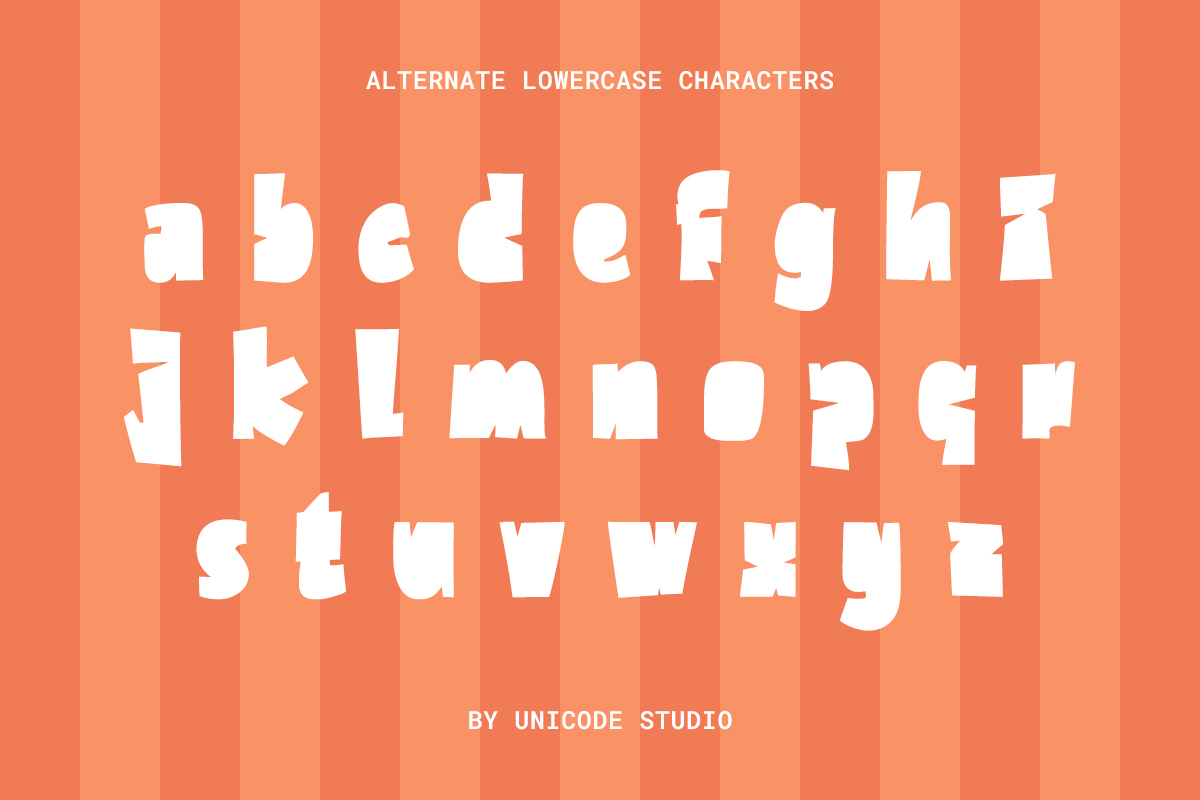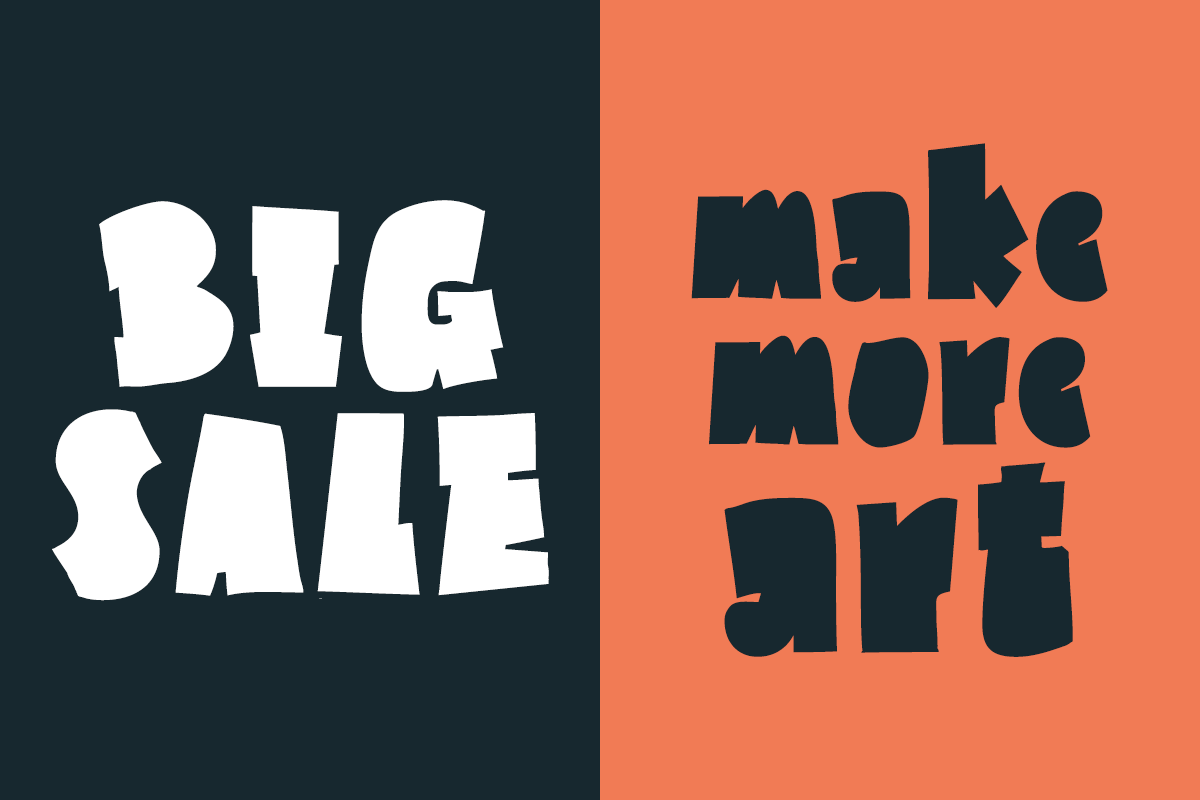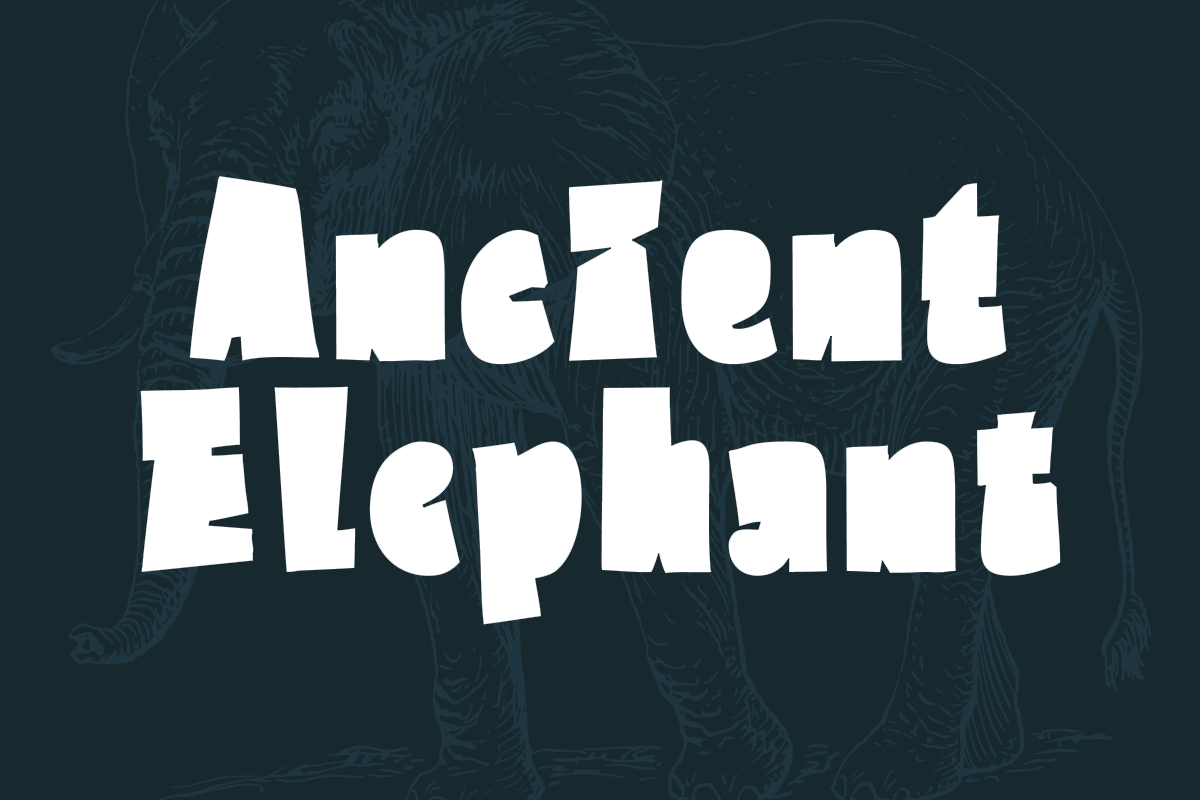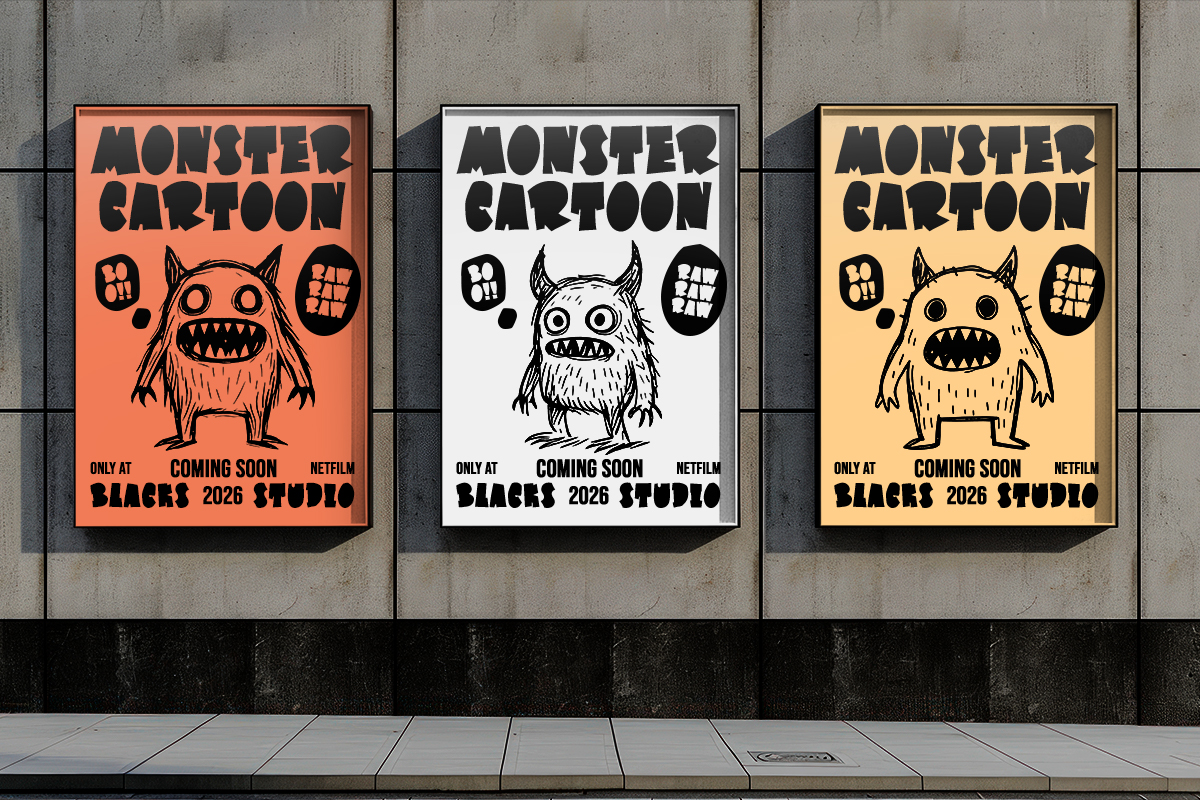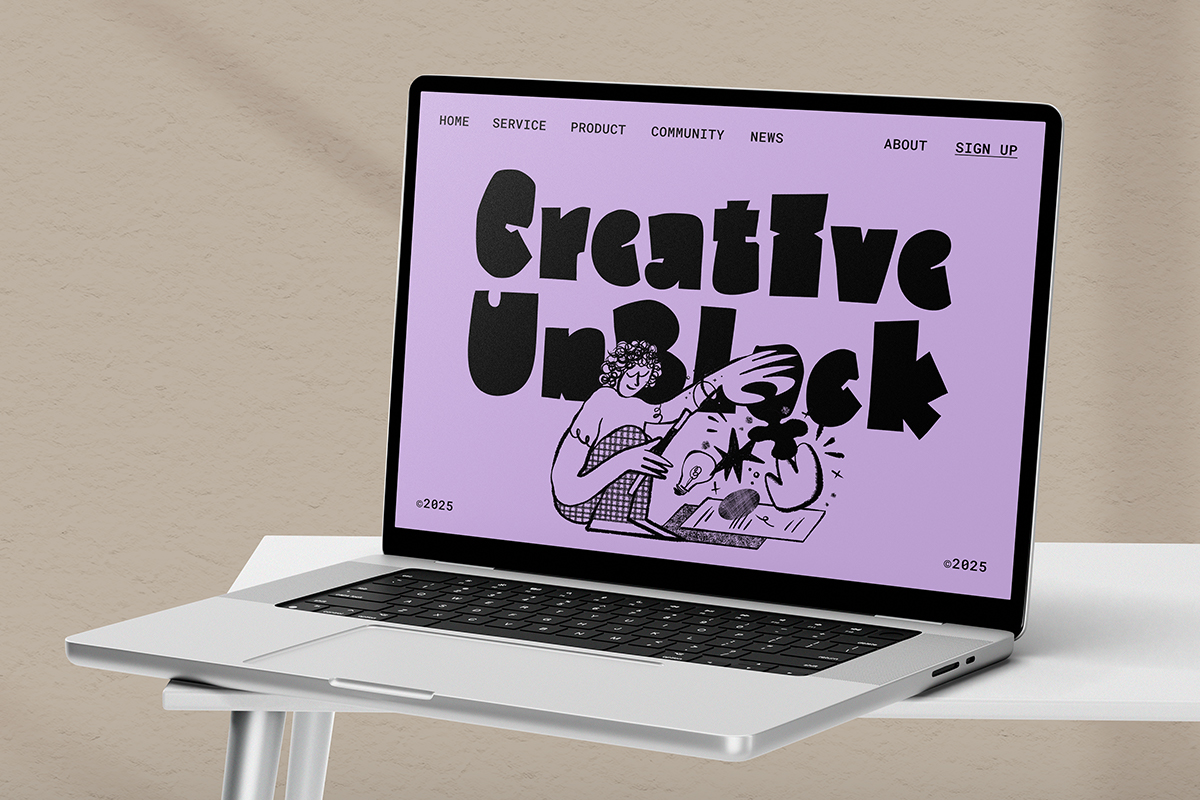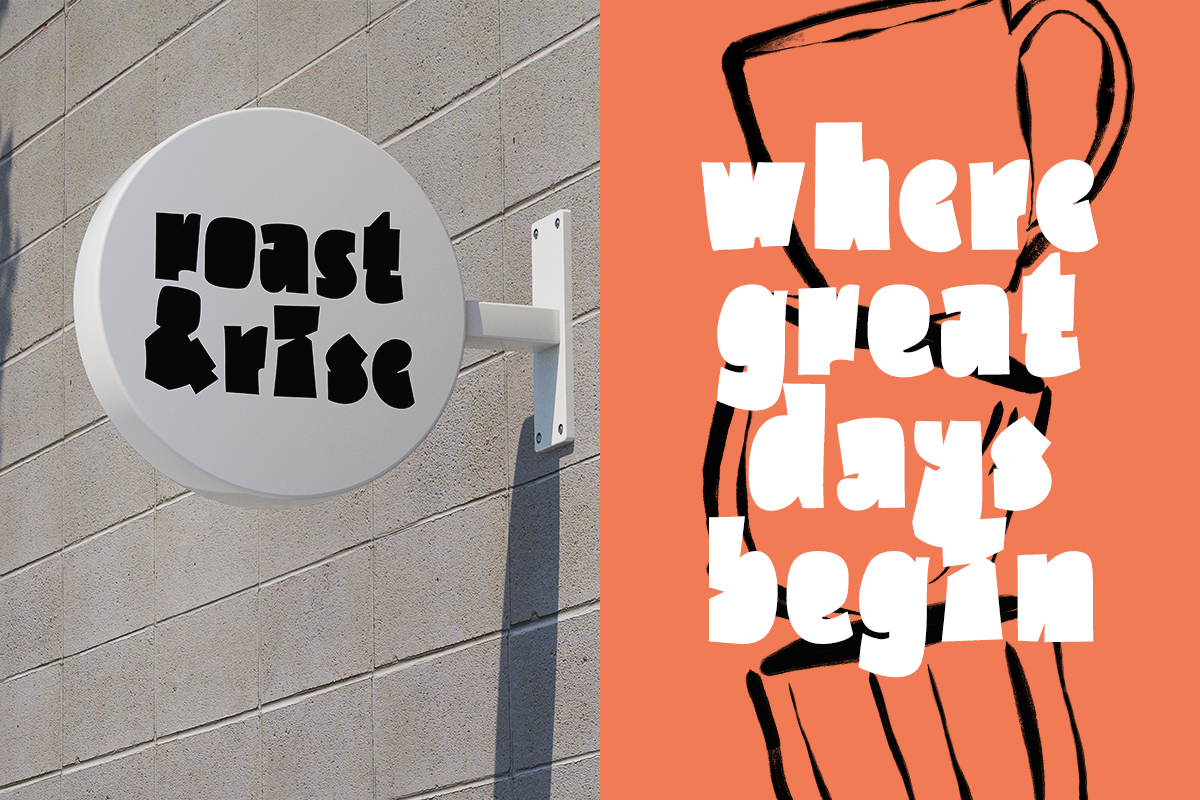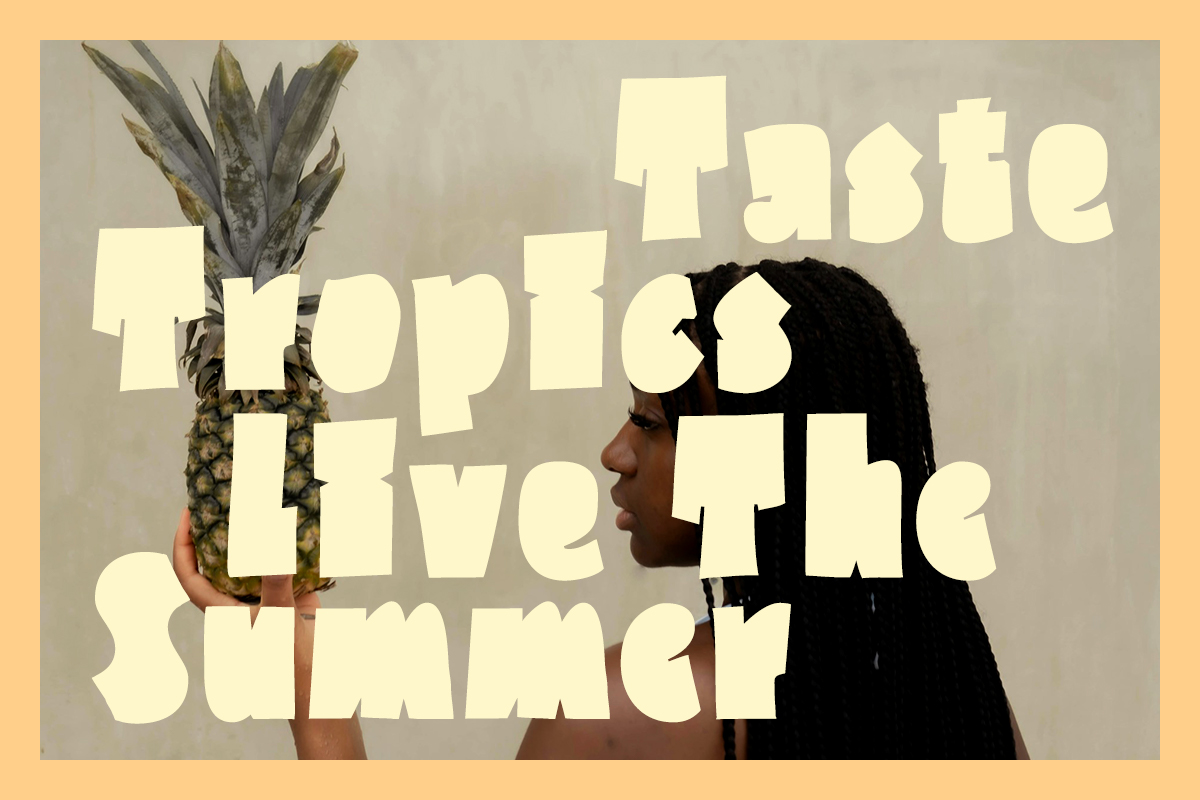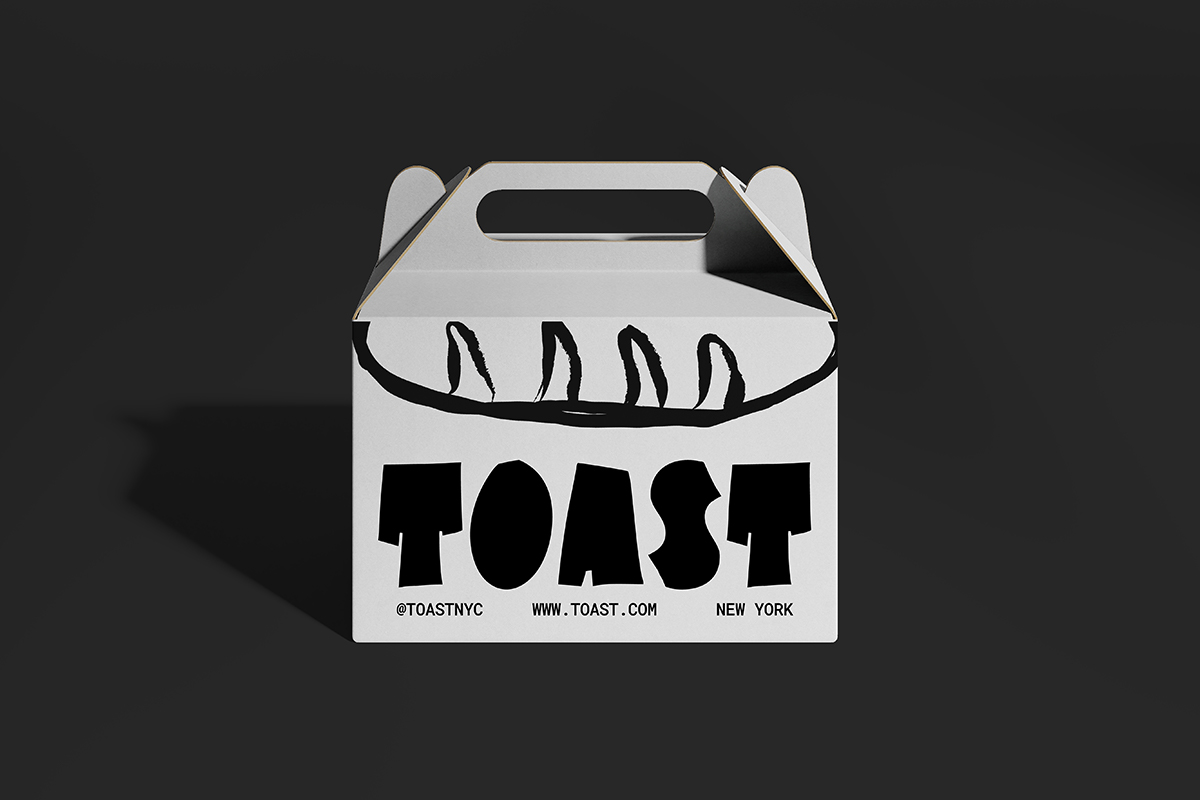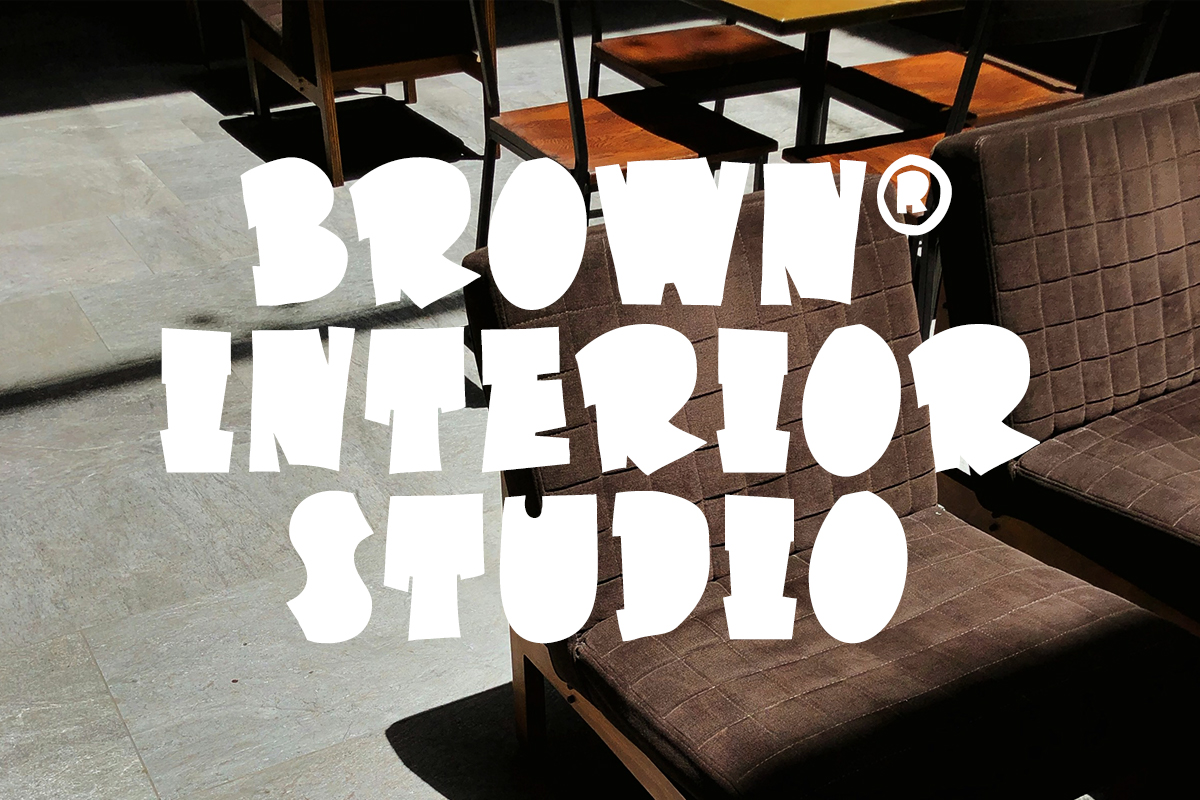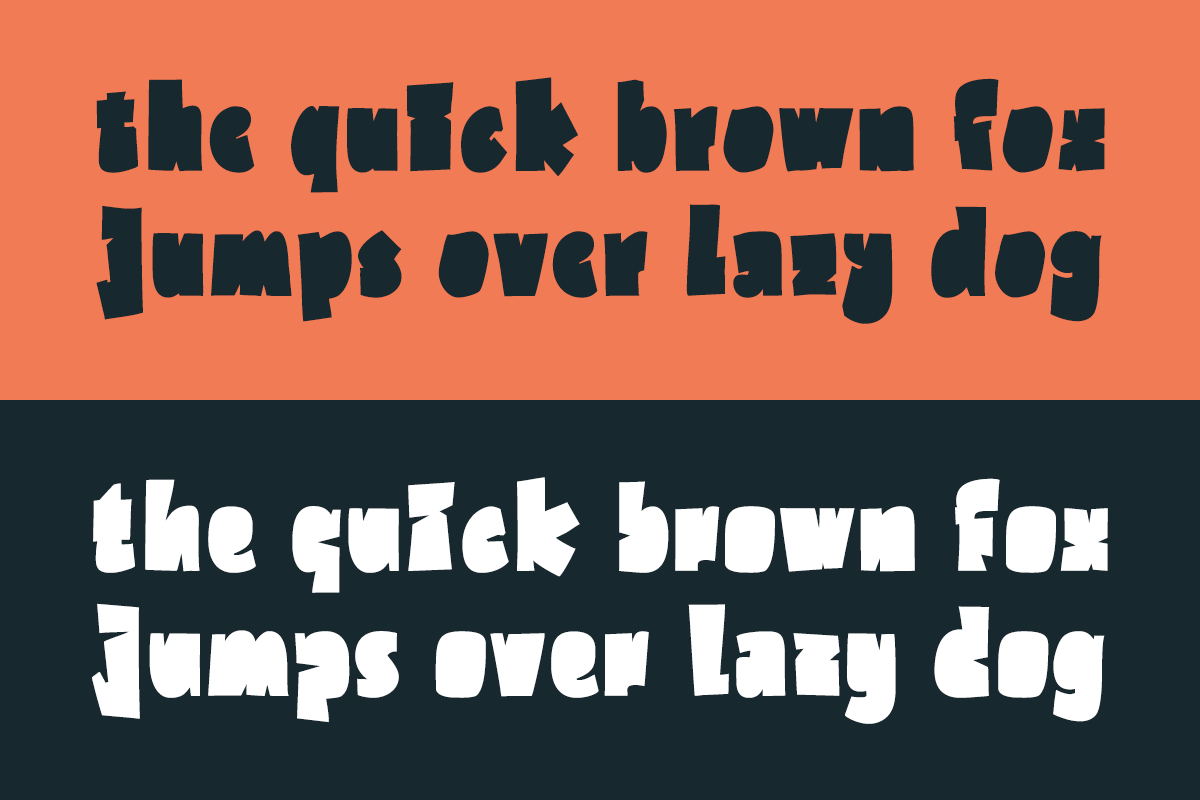
Elephanter – Cut Out Display Font
Elephanter font is a modern cut-out display font that features thick, bold, and minimalist letterforms with strategic negative space, creating a bold yet elegant visual impact. Its contemporary design combines clean geometry with stylish gaps, making it perfect for fashion branding, editorial headlines, and high-end product packaging. This font combines sharp sophistication with a fresh, fashion-forward aesthetic, making it a go-to choice for designs that aim to be bold yet refined.
• Standard Ligatures
• Stylistic Alternates
• Uppercase and Lowercase